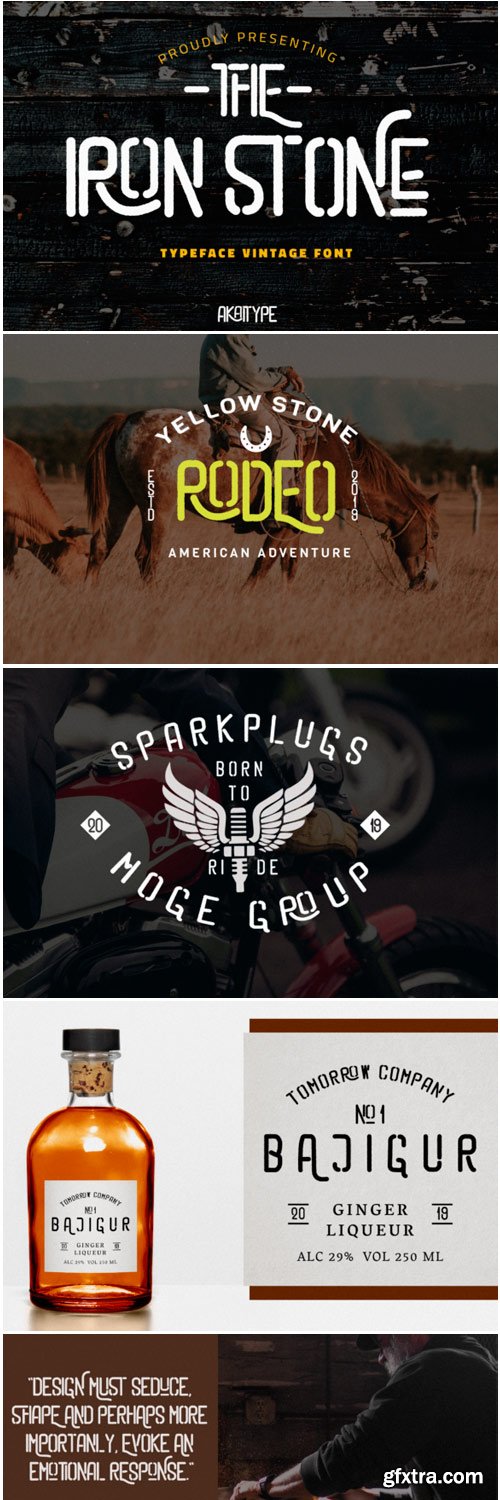
The Iron Stone Font
The Iron Stone is monoline all caps font with a beautiful vintage style. Use it to add a cool and sophisticated feel to any design project.